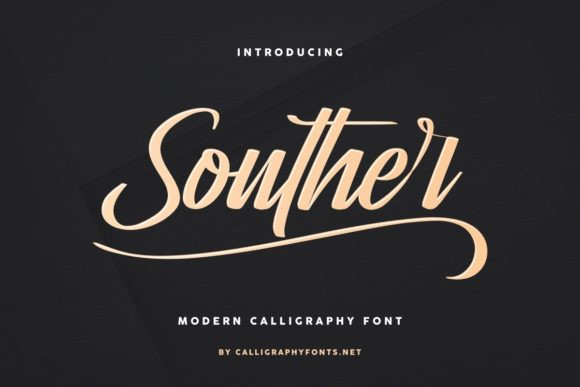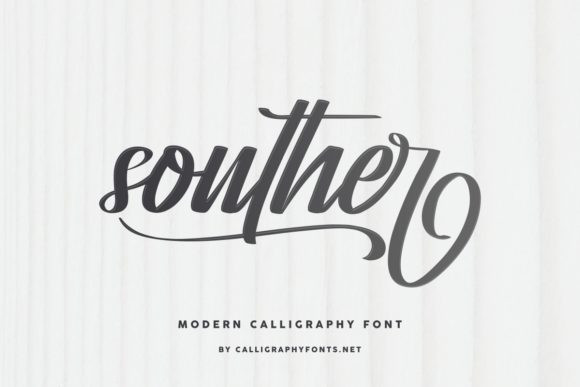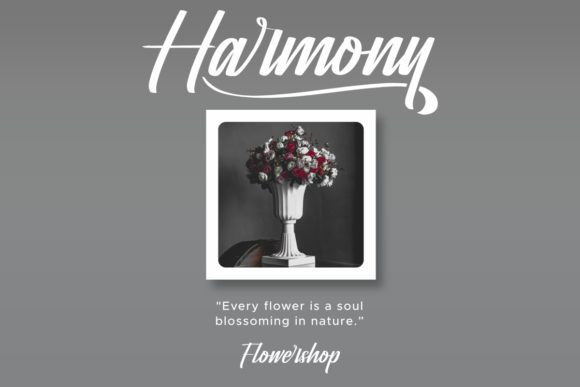
Souther Font
Souther is a stylish and exquisite handwritten font. It maintains its classy calligraphic influences while feeling contemporary and fresh. Fall in love with it and bring your projects to the highest levels!